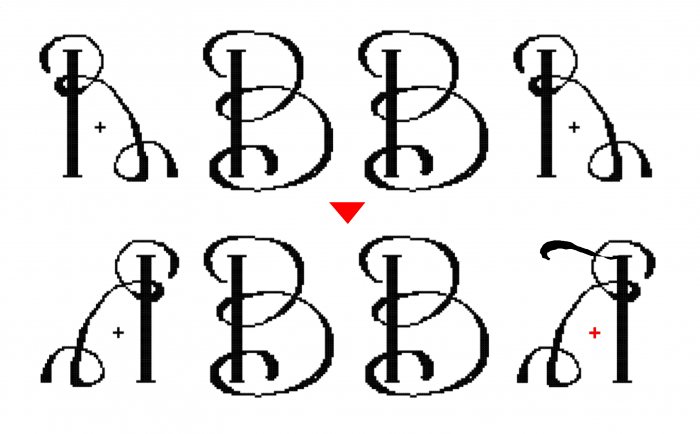
A very good idea for a swash font. With all due respect, I would like to tell you about the possibility of changing the appearance of the A with a flip and adding a swash on top, as I show you in the sample. I would very much like to see this font finished and with its entire character set operational. Thank you for doing it with us.